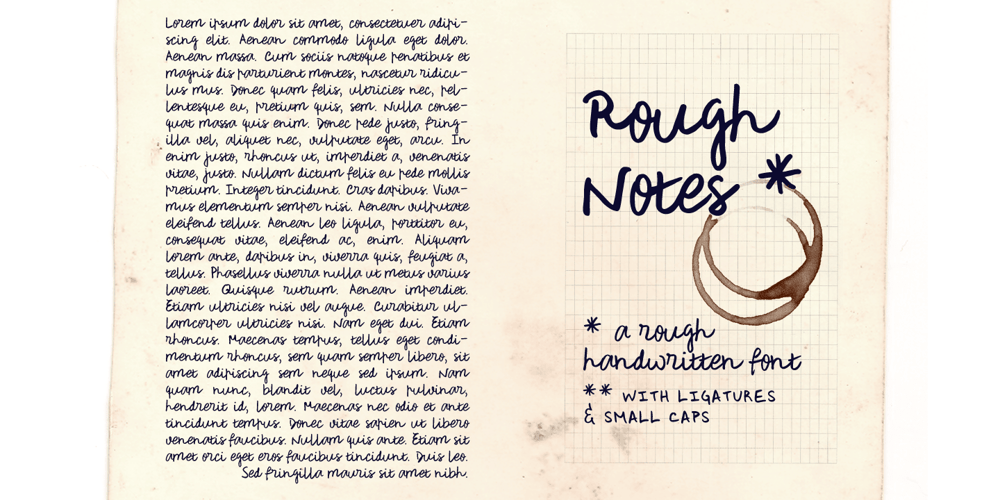
Rough Notes
Rough Notes font
Rough Notes Font Family was designed by Ana Parracho and published by Ana’s Fonts. Rough Notes contains 2 styles and family package options. Rough Notes is a cute handwritten font with 550+ characters, including a set of small caps and tons of ligatures, for a smoother and more authentic handwritten feel.Use it in any design that needs a handwritten feel, such as signatures, notes and quotes, logos and branding.